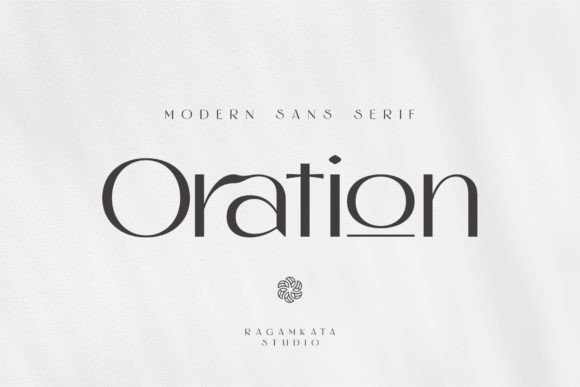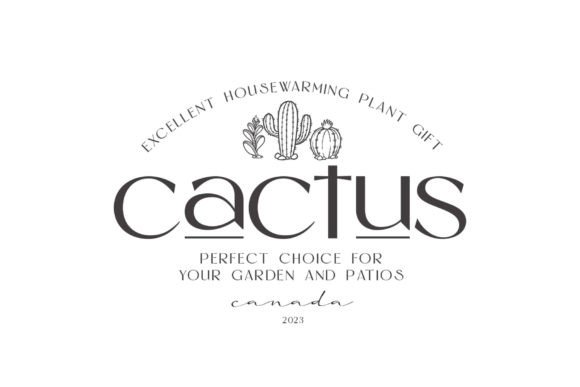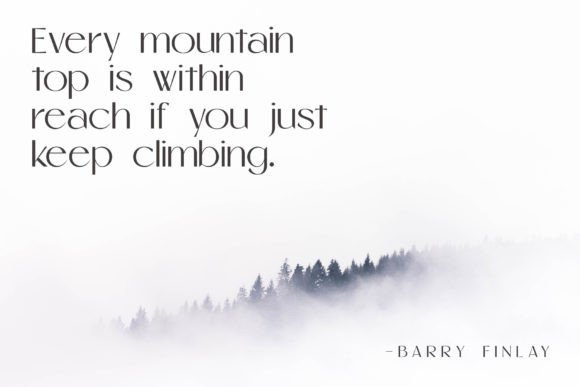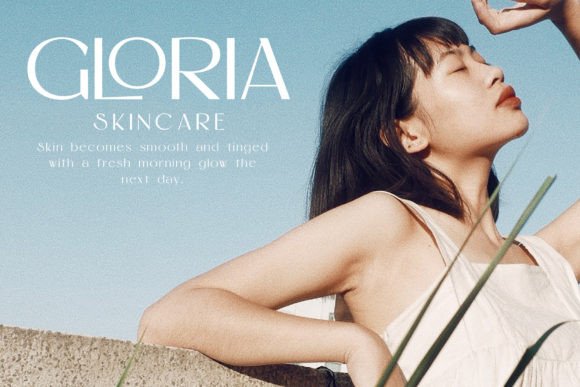
Oration Font: Elegant & Modern Sans Serif for Logo Design
About the Oration Font
Crafted with precision, the Oration Font is ready to bring your ideas to life. Orient is a elegant and feminine sans serif with a touch of modern look and feel. This type of font perfectly made to be applied especially in logo, headline, signage and the other various formal forms such as invitations, labels, logos, magazines, books, greeting / wedding cards, packaging, fashion, make up, stationery, novels, labels or any type of advertising purpose.
Oration’s elegant, feminine qualities make it ideal for headlines, branding projects requiring a sophisticated touch, and packaging for luxury or beauty products. It also excels in short-form applications like signage and invitations. However, its delicate strokes are less suitable for body text or UI elements where high legibility is paramount. Long paragraphs set in Oration would strain readability.
Pairing Oration with a complementary sans-serif like Montserrat for body copy provides a balanced and modern feel. For a touch of classicism, a serif like Garamond could be used to contrast its clean lines, while a playful script font like Allura could add a layer of personality in specific design elements.
Oration projects an overall aura of refined elegance and modern sophistication, making it the perfect choice for brands aiming for a timeless yet contemporary image.
Oration Font Usage Examples
Oration Font Example